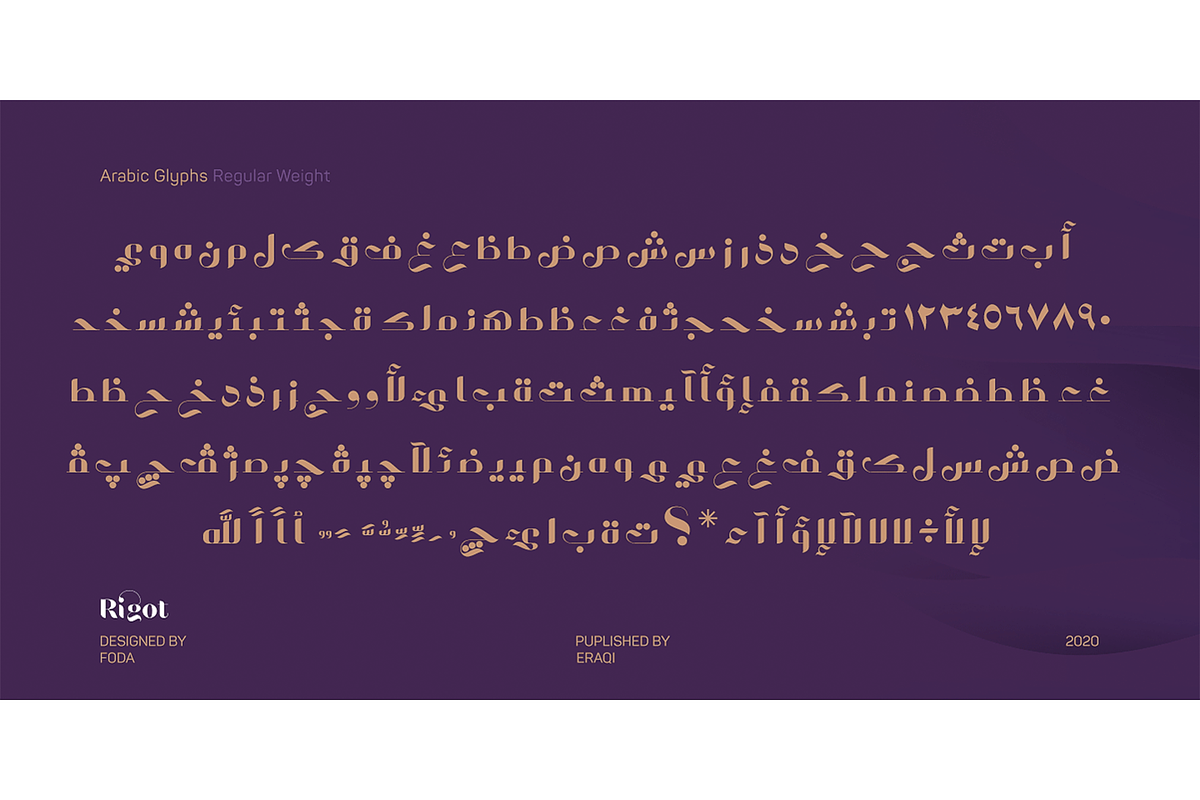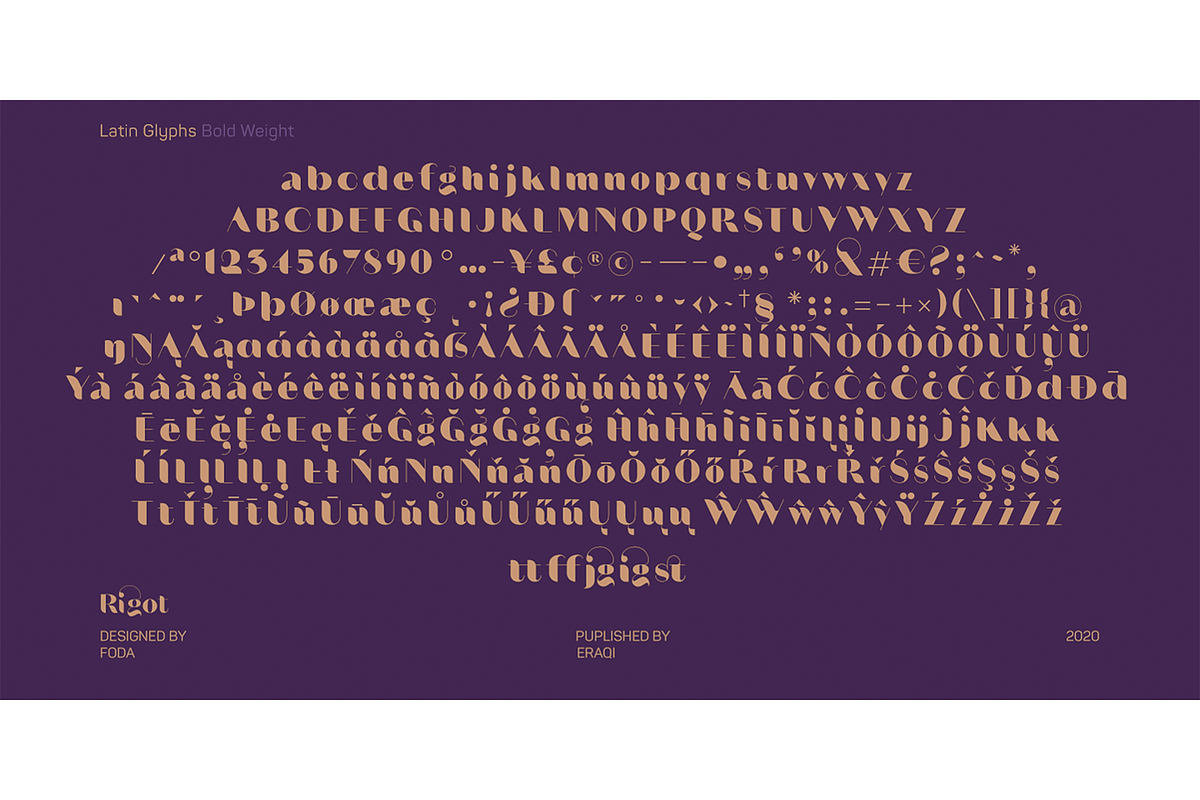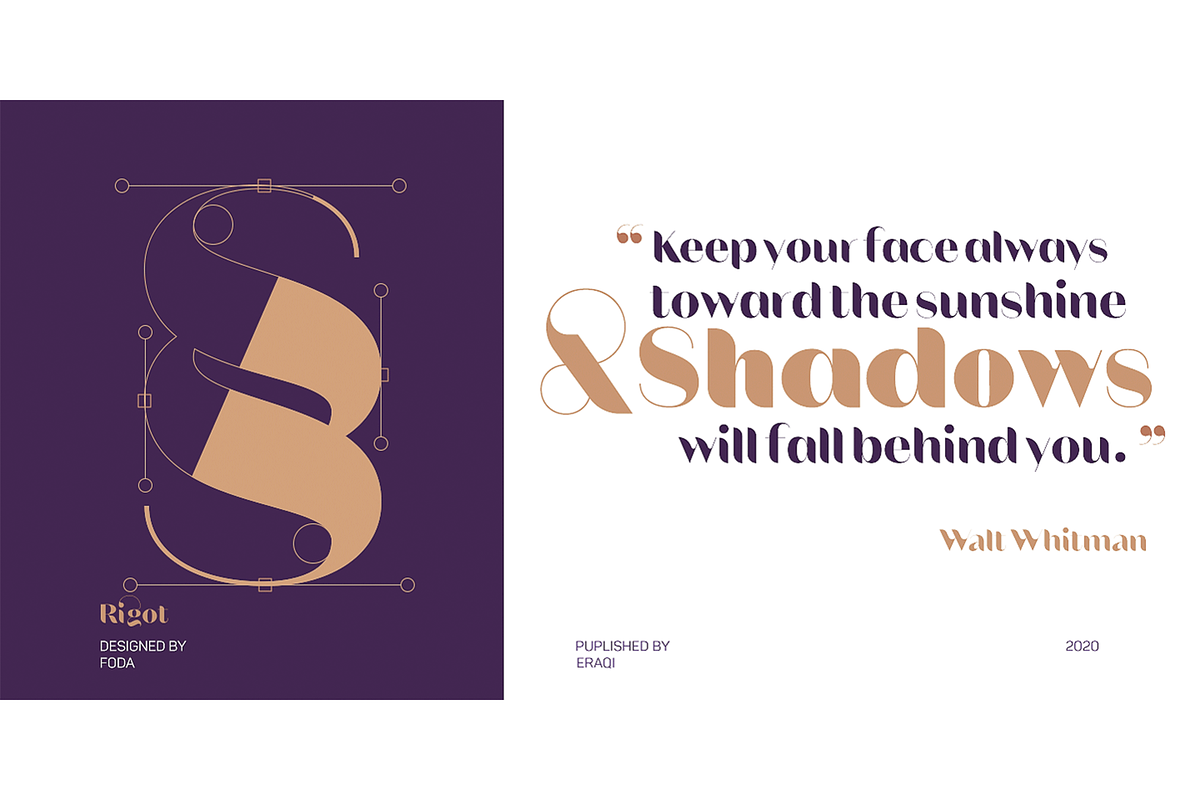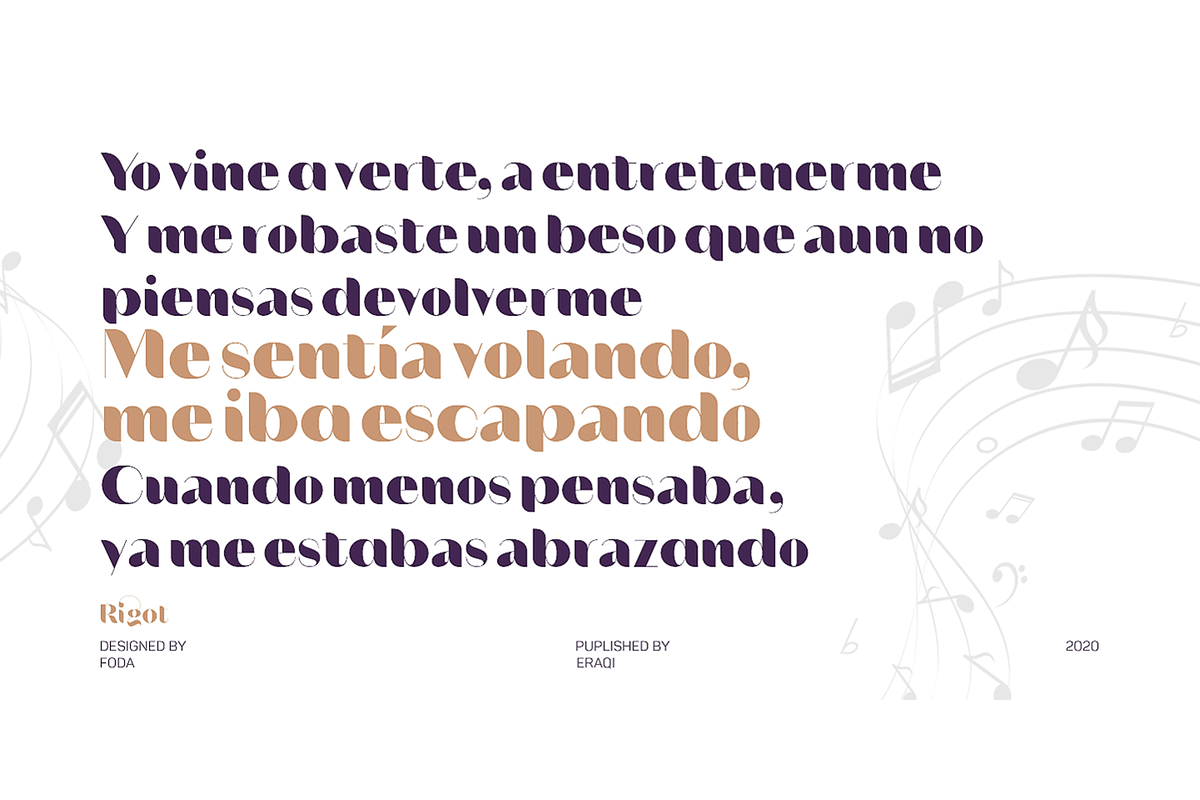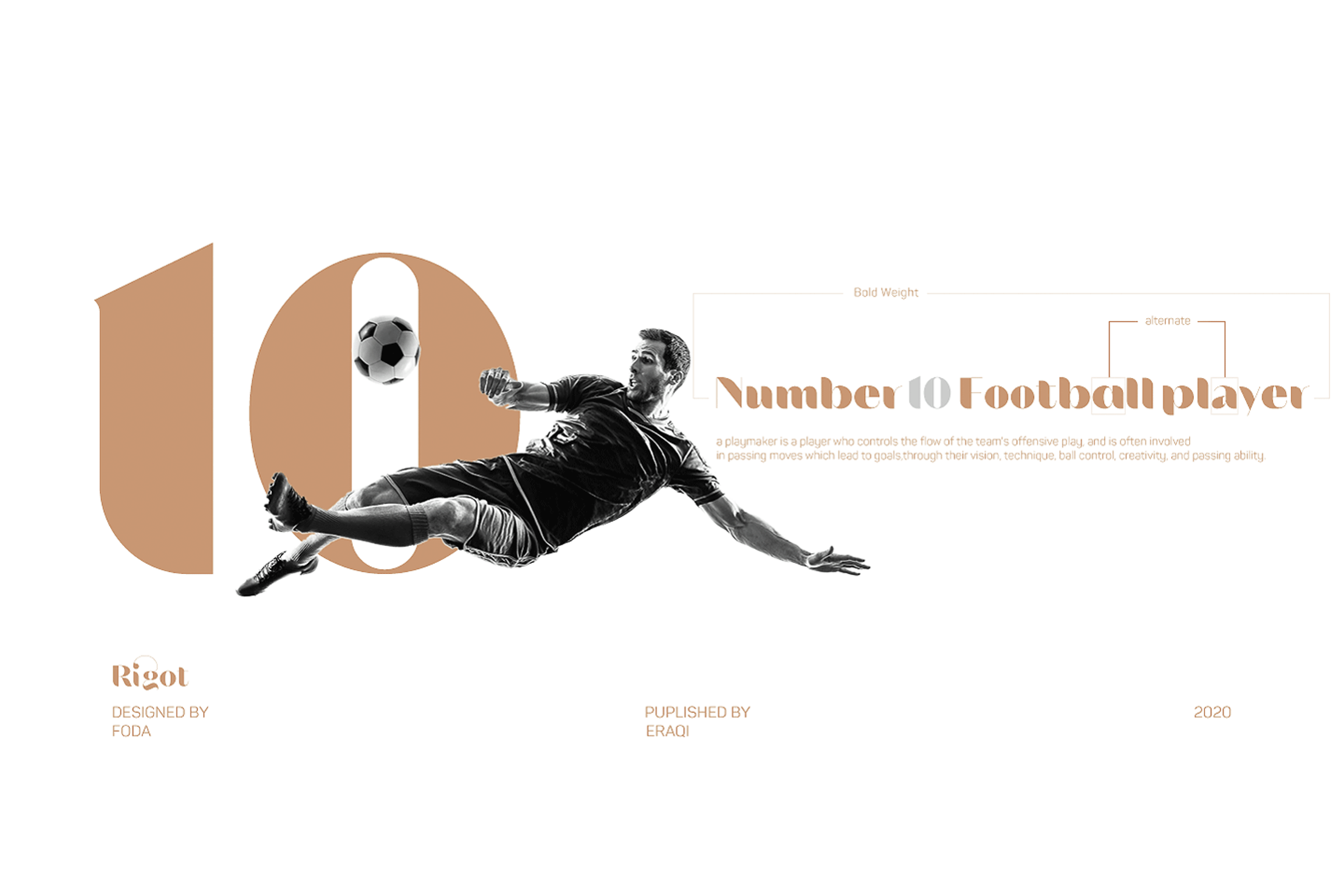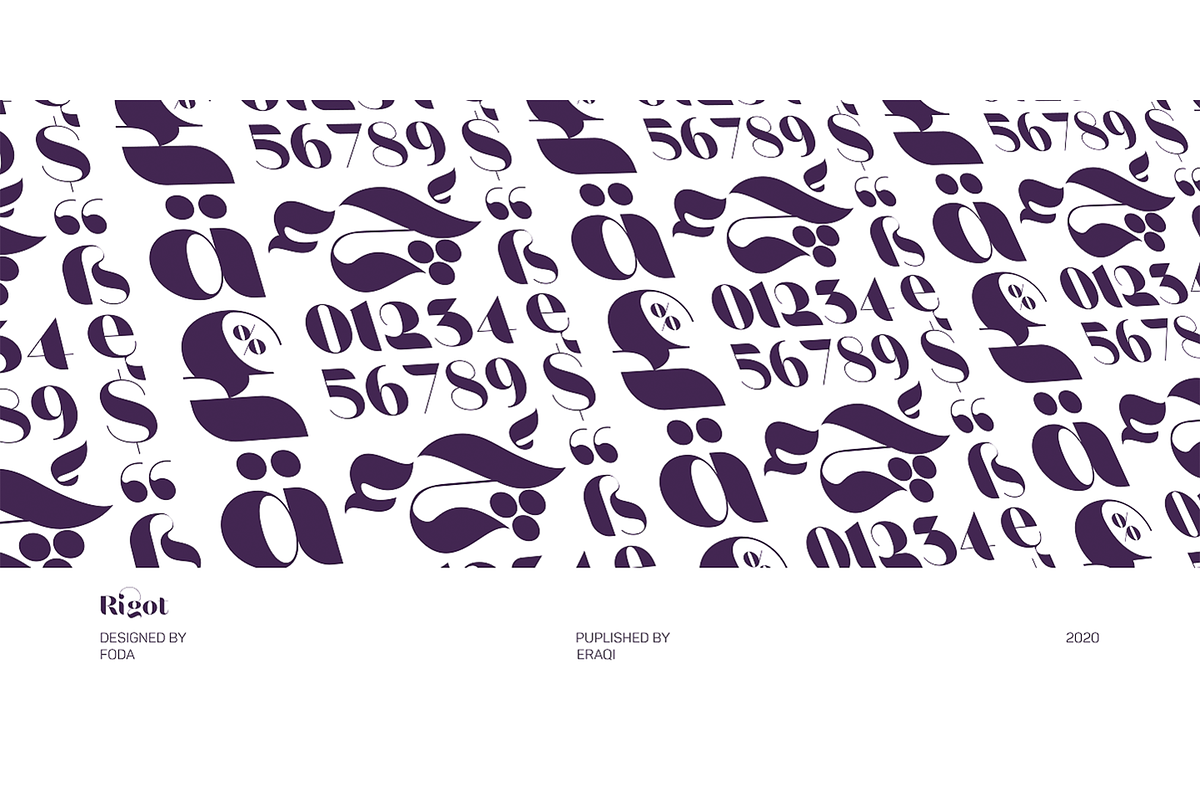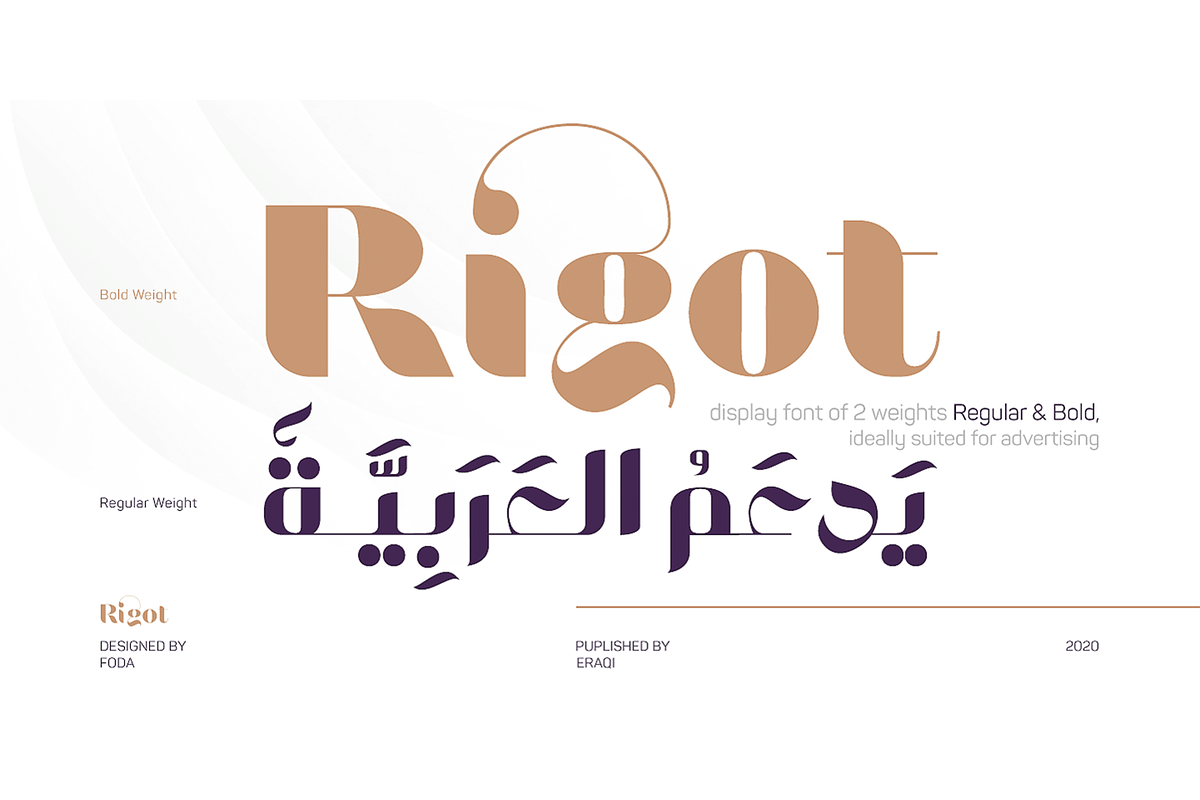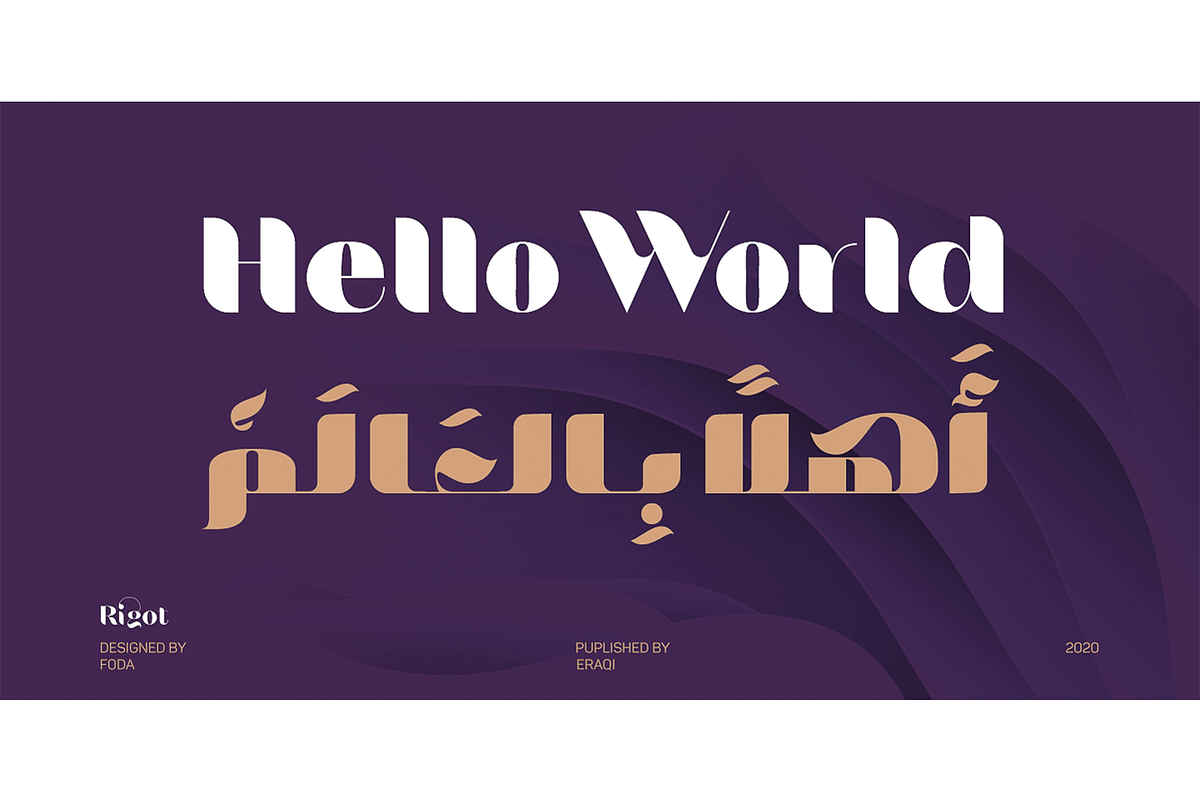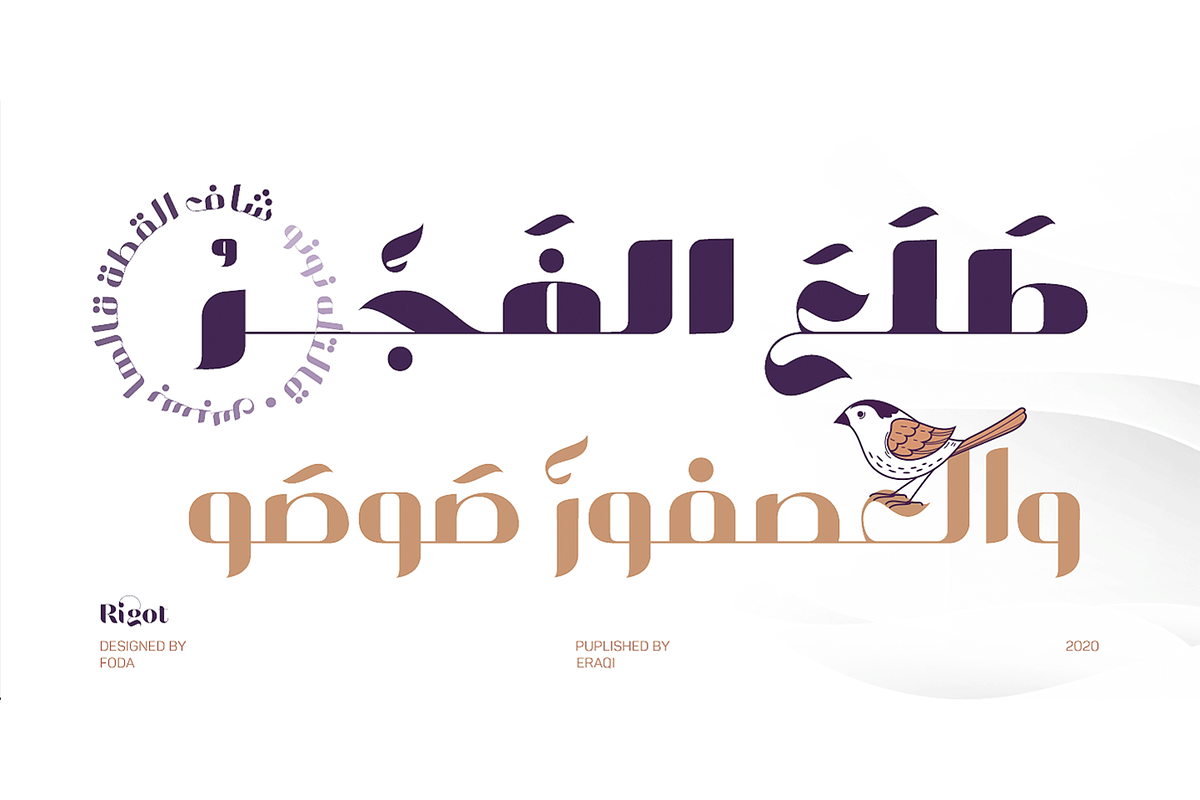
Rigot Font
Rigot is a Modern display typeface which comes in regular & Bold weights with features of extended & Additional Latin character set of 552 glyphs covering many languages with full Arabic language support and includes advanced OTF such as standard and discretionary ligatures, and stylistic alternates and more.
Rigot covers many OTF features that suitable for Headlines and gives you the potential to show your business, brand or logo in a unique way.